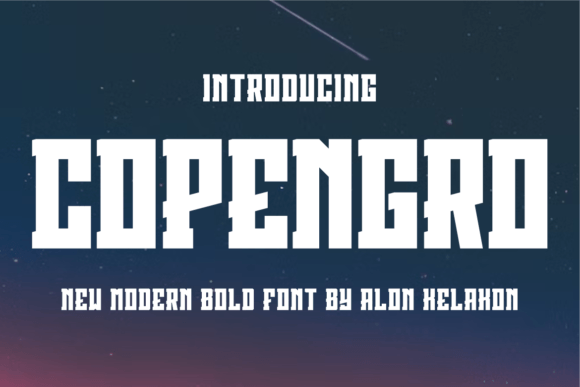
Make Your Mark with the Power of Typography
You know that moment when a font just clicks? You’re brainstorming ideas for a project, and suddenly, a style pops into your head. For designers, this moment is often a game-changer. It’s the spark that ignites creativity and sets the tone for a project’s success. For me, that moment came when I discovered the Copengro Font.
This strong and masculine display font is designed to make a statement. Whether it’s a poster, headline, or gym banner, Copengro Font is the perfect addition to grab attention and leave a lasting impression. Its bold, rugged feel is perfect for projects that need a touch of confidence and energy.
As a designer, having access to a versatile font like Copengro Font is invaluable. It’s the perfect tool to add some edge to your work and stand out from the crowd. With Copengro Font, you can create bold, eye-catching designs that leave a lasting impact on your audience.
Getting the Most Out of Copengro Font
For optimal results, use Copengro Font in conjunction with bold and italic styles to add emphasis and visual interest to your text.
Copengro Font is ideal for:
- Brand logos and identities
- Restaurant and cafe menus